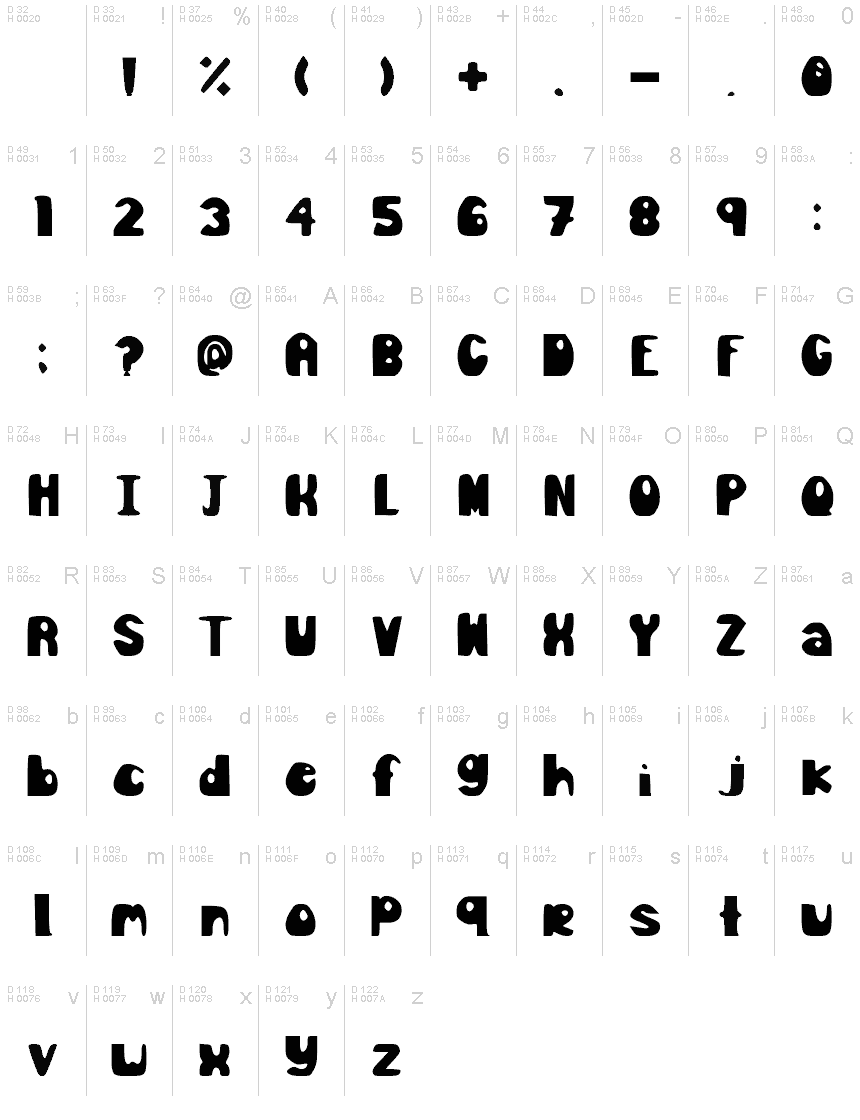
Olive_Juice
Olive Juice is a bold, playful display font that exudes a distinct cartoon-inspired aesthetic. Designed by Lindsey Fletcher, this font boasts striking letterforms that blend organic fluidity with a touch of whimsy. The thick, weighted strokes and rounded terminals create a visually engaging and approachable appearance, making Olive Juice an ideal choice for a wide range of design applications, from children's storybooks and product packaging to vibrant branding and promotional materials.
Its versatile style allows it to seamlessly integrate into playful, lighthearted design compositions, adding a touch of personality and character to any project.